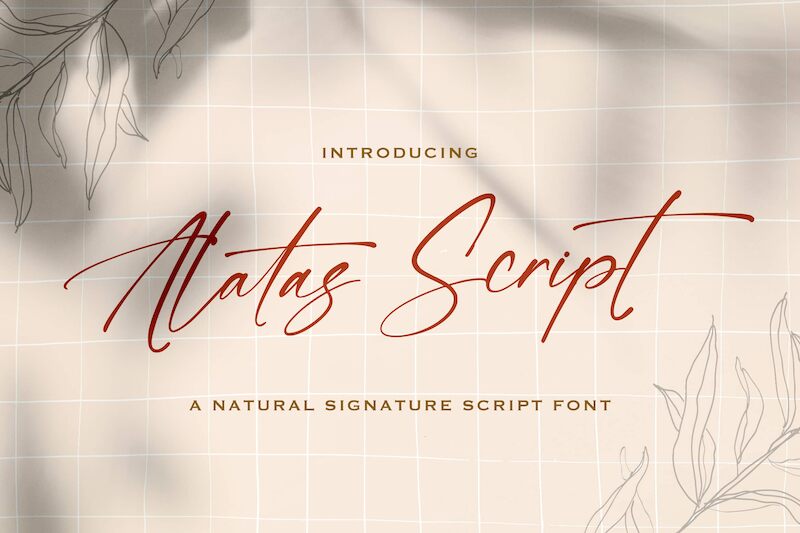
Alatas Script, a creation from StringLabs Creative Studio, embodies the essence of personal touch in its handwritten, signature style. With a light weight that whispers elegance, this font dances between sophistication and playful charm, making it an exquisite choice for designs requiring a hint of individuality.
The fluidity of Alatas Script's characters suggests a natural flow reminiscent of authentic penmanship. Its aesthetic appeal lies in the balance it strikes between readability and artistic flair, lending itself to an array of creative endeavors. Whether gracing wedding invitations with its romantic curves or adding a bespoke feel to branding materials, Alatas Script is as versatile as it is visually enchanting.
In the landscape of typefaces where distinction is key, Alatas Script stands out for its potential to infuse projects with personality while maintaining an air of professional finesse.